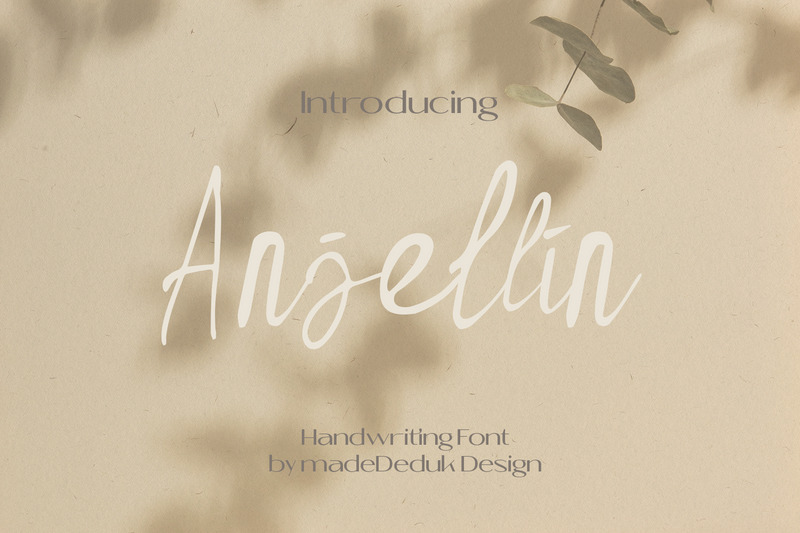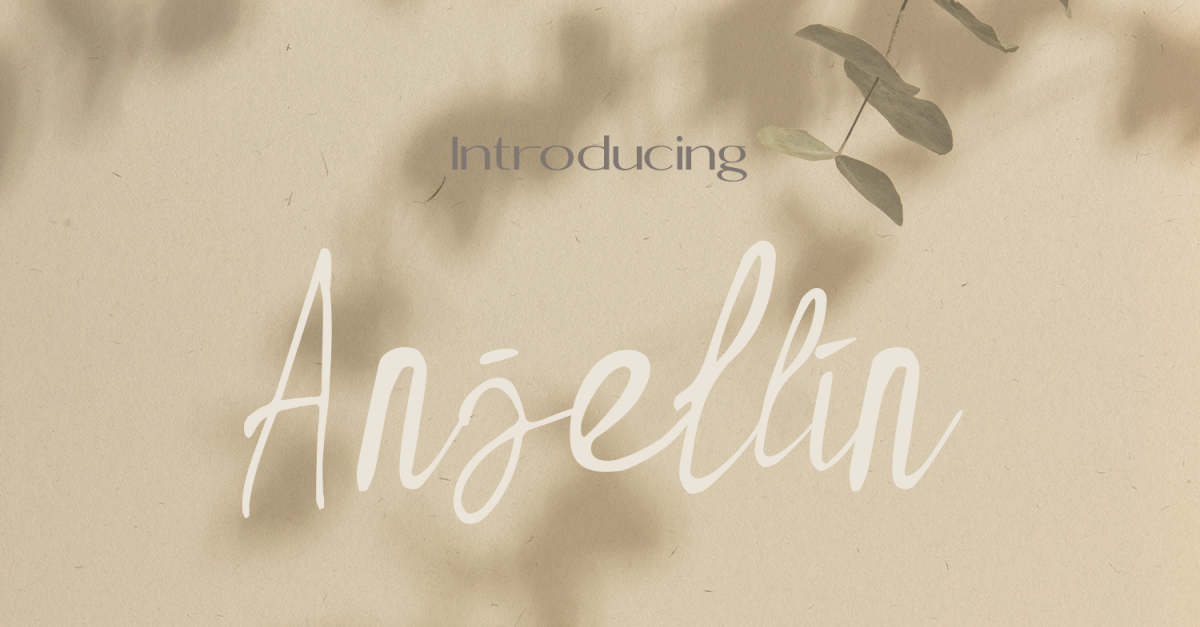
Anjellin - Handwritten Script Font
Anjellin is a Realistic script font inspired from classic handwriting. Suitable to create any branding, product packaging, invitation, quotes, t-shirt, label poster etc.